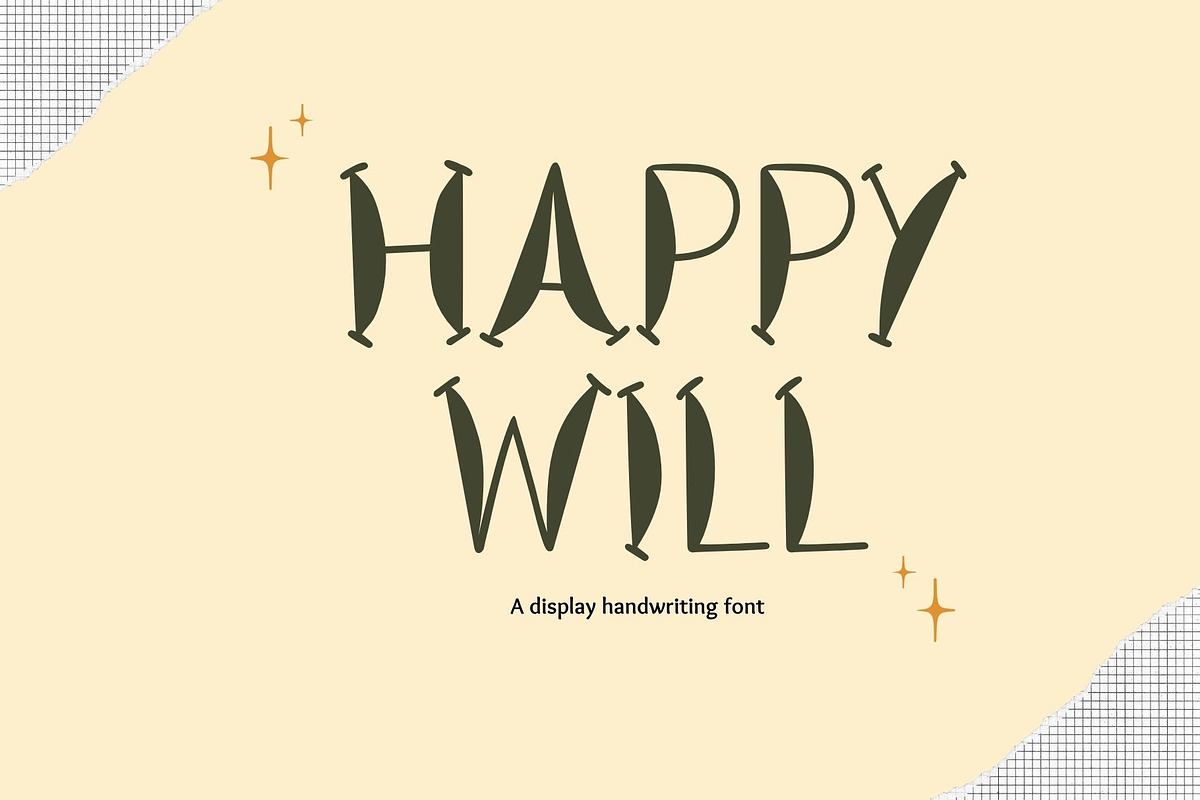
Happy Will Font Free Download is a cheerful and playful script typeface designed to add a touch of joy and warmth to your designs. With its smooth, bouncy strokes and casual elegance, this font is perfect for greeting cards, invitations, branding, social media content, and any project that needs a fun, uplifting vibe.
The font’s friendly and organic flow makes it ideal for conveying happiness and positivity, while maintaining legibility and charm. Whether you’re designing for a festive event, a personal project, or a lighthearted brand, Happy Will adds a delightful, handwritten feel to your typography.